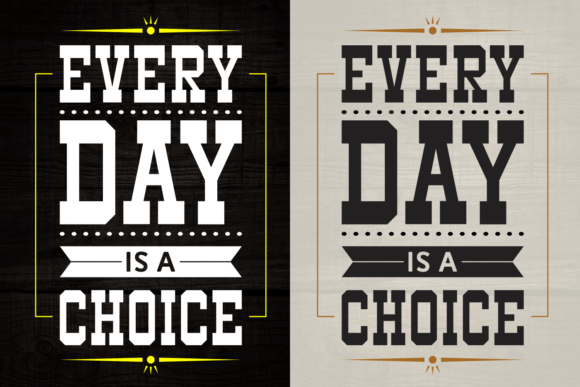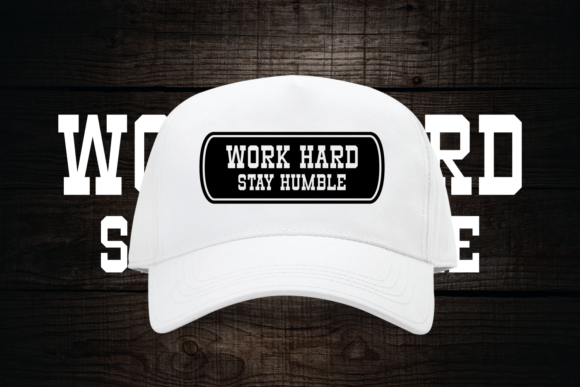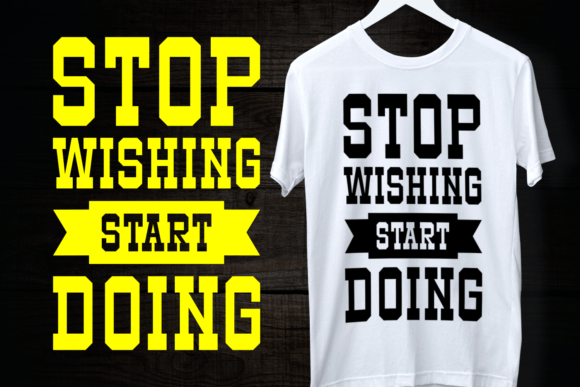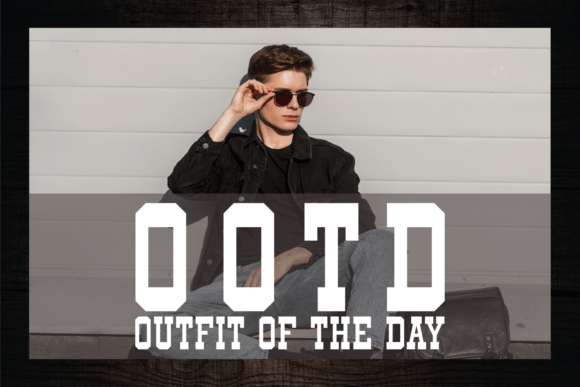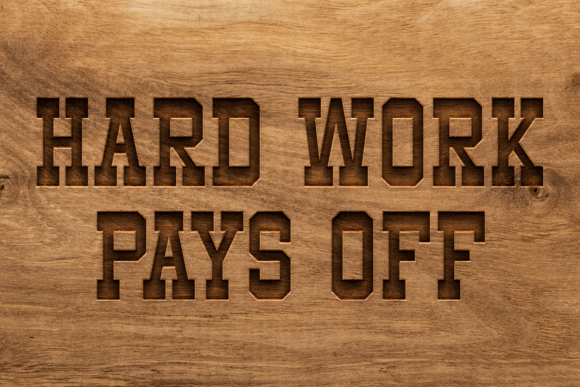
Introduction to Famous Varsity Font
There’s nothing quite like the rush of a creative project coming together – the excitement of combining colors, textures, and typography to bring a vision to life. For many designers, this moment is what it’s all about. But, let’s face it, the right font can make all the difference. Imagine having a go-to font that elevates every creation, every time. That’s where the Famous Varsity Font comes in – a bold and assertive serif font that’s sure to make a statement.
With its high-quality design and transparent background, this font is a free download that’s a must-have for any designer’s library. Whether you’re working on a logo, brochure, or website, the Famous Varsity Font is the perfect design resource to take your project to the next level.
Key Features of Famous Varsity Font
- High-quality font design with a bold and modern appearance, ideal for creative projects.
- Designed to be highly legible, even at small font sizes, making it perfect for titles, headings, and body text.
- Part of a larger font family, offering a range of styles and weights to suit different design needs.
Honest Review: Famous Varsity Font
As a designer, I’m always on the lookout for high-quality fonts that can elevate my creative projects. The Famous Varsity Font is one such find that I’m excited to share with you.
What works well: ✨ The font is free to download, which is a major plus for designers who are working on a budget. It also comes with a transparent background, making it easy to layer over other design elements. The font itself is bold and eye-catching, perfect for use in titles and headings.
However, there are a few limitations to consider: ⚠️ The font is not as versatile as some other options, and may not be suitable for use in body text. Additionally, the font’s boldness can sometimes make it difficult to read, especially at smaller font sizes.
Here are a few things to keep in mind when using the Famous Varsity Font:
- Use it sparingly to avoid overwhelming the design.
- Pair it with a clear, easy-to-read font for body text.
- Experiment with different font sizes to find the sweet spot.
Overall, I’m impressed with the Famous Varsity Font as a design resource. While it may have some limitations, it’s a great option for designers who want a high-quality, eye-catching font for their creative projects.
The Famous Varsity Font is ideal for creating eye-catching headlines, titles, and captions in various creative projects, including social media graphics, blog posts, and presentations.